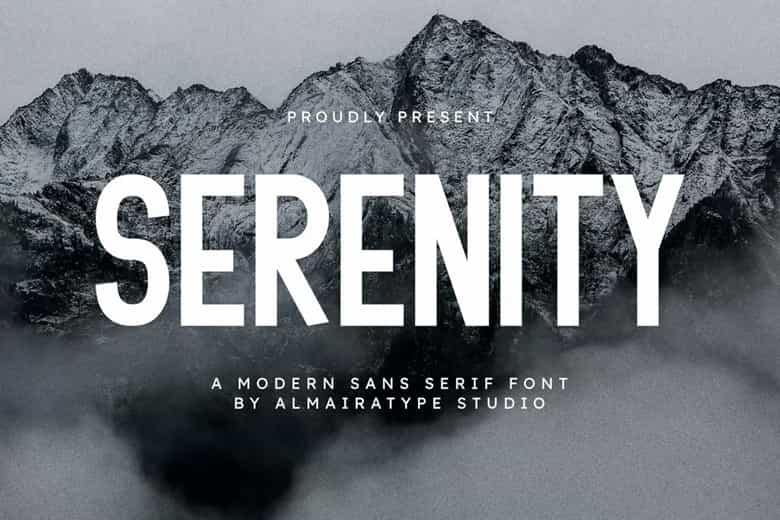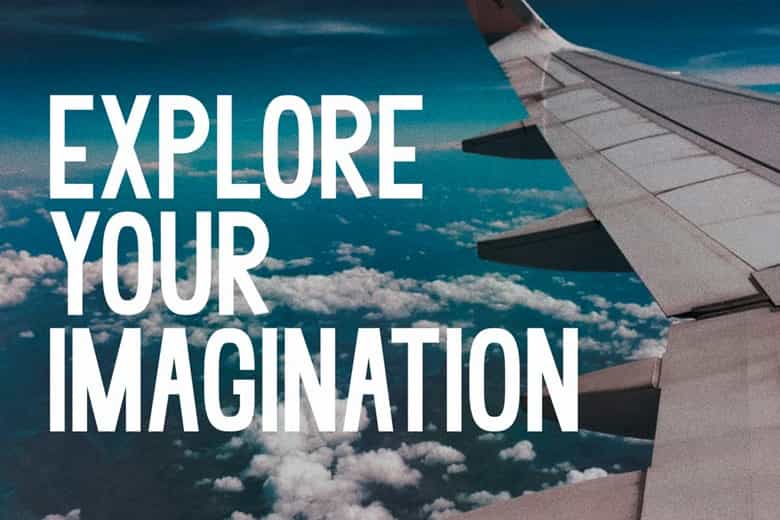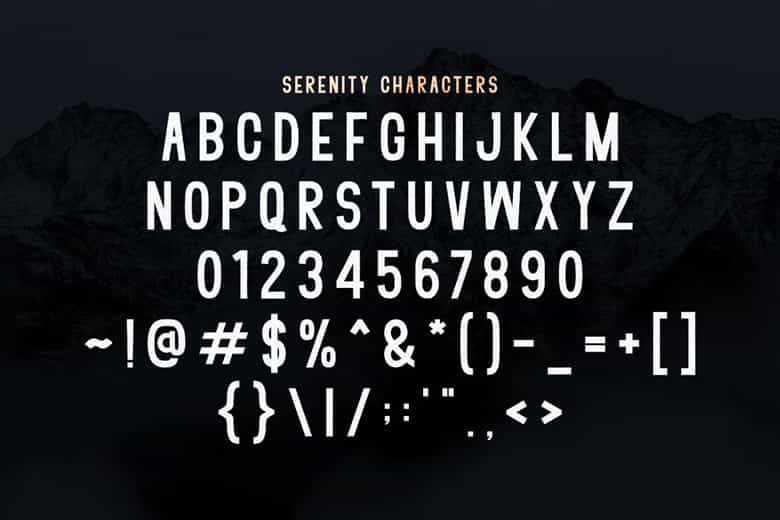
Serenity is a contemporary sans serif typeface that features thick lines, square forms and clean design – Ideal to give your branding, editorial design, product packaging and digital design a lift. Designed to meet the demands of clarity and sophistication by the designers, Serenity is minimalistic and effective.